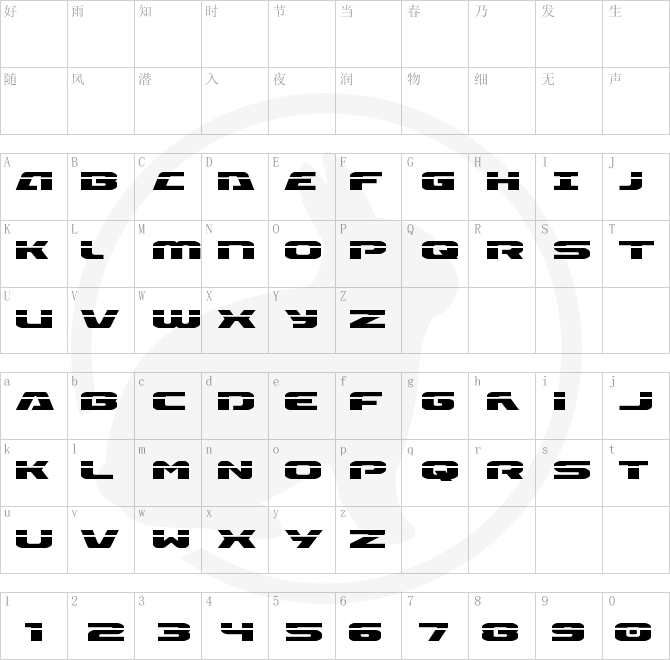
- Font Name:Iapetus Laser
Iapetus-Laser-Regular.ttf is a very beautiful artistic font, Iapetus-Laser-Regular.ttf is widely used in the design and printing of various books and pictures,Iapetus-Laser-Regular.ttf has a strong visual impact,Iapetus-Laser-Regular.ttf is a commonly used font in newspapers, magazines and books, and is used in posters, e-commerce Poster design, store design, logo design, font design and other fields.Iapetus-Laser-Regular.